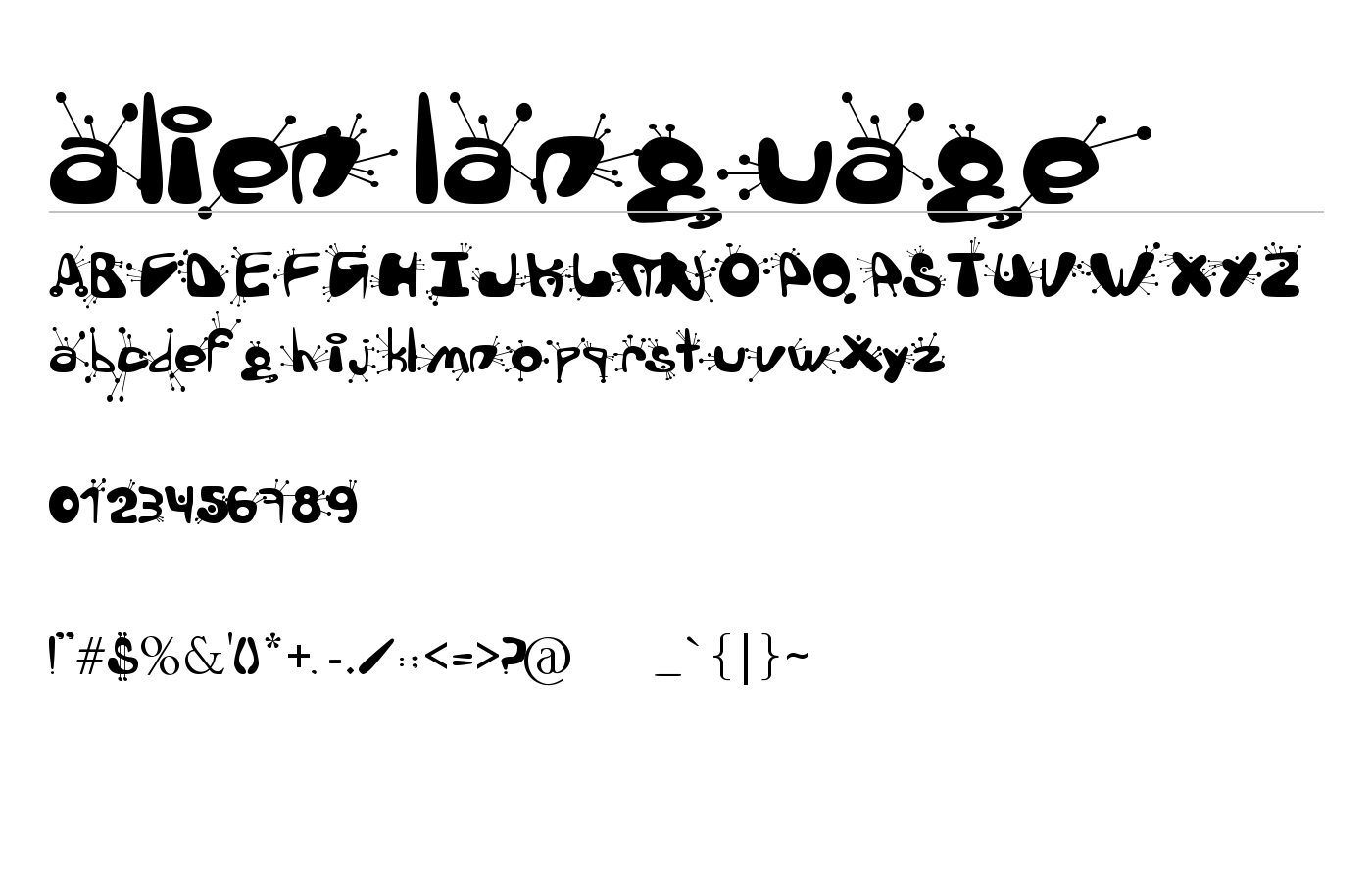
Alien Language is a playful, decorative sans-serif font characterized by its bold, rounded shapes accented with quirky orbit-like dots and lines, giving it a futuristic, extraterrestrial vibe. This font features a medium weight with normal width and a medium x-height, combining whimsical, almost hand-drawn letterforms with unique details like asymmetrical elements and unusual punctuation. Ideal for sci-fi themes, kids’ designs, or creative branding, Alien Language stands out in headlines, posters, and playful digital projects where a fun, out-of-this-world personality is needed.